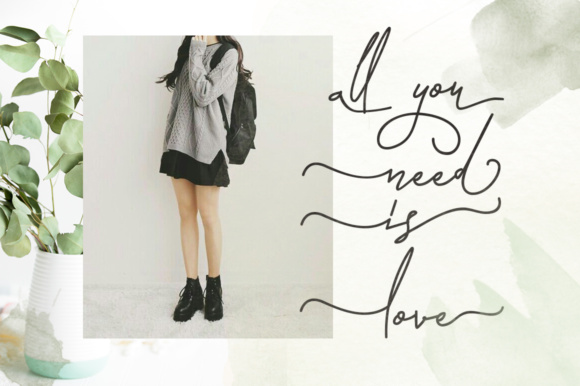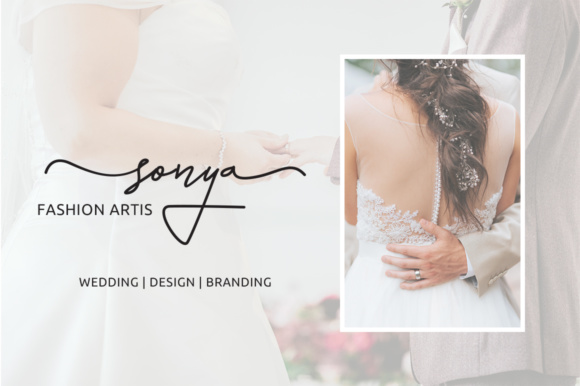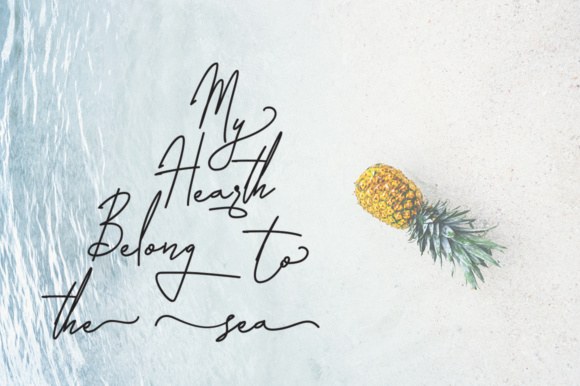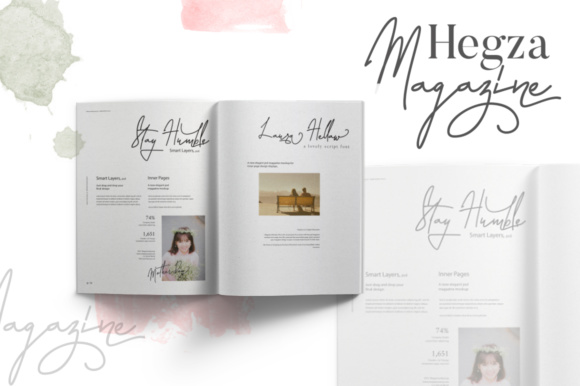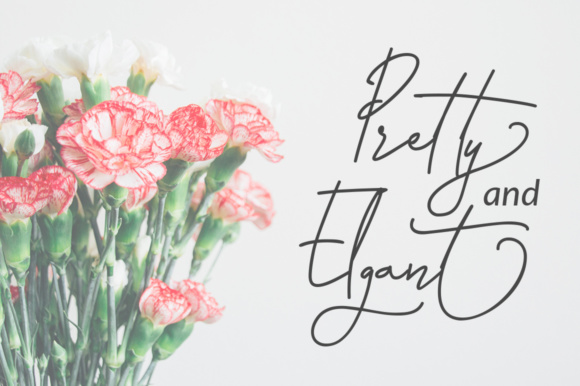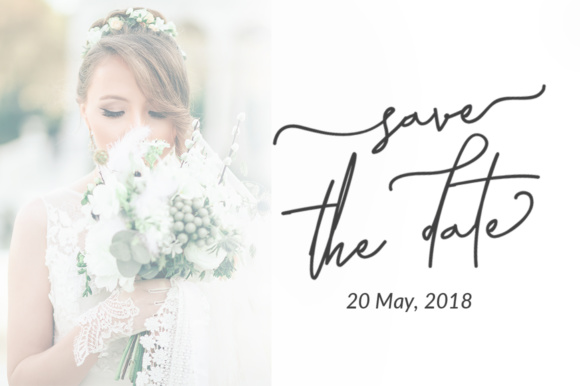
Introduction to Laura Hellaw Font
Have you ever stared at a blank design canvas, struggling to find the perfect font to bring your creative vision to life? I know I have. The blank page can be intimidating, but the right font can make all the difference. That’s where the beautiful Laura Hellaw Font comes in – a lovely script font that’s perfect for a wide range of creative projects and special event designs.
This monoline signature font is a game-changer for designers, offering a unique blend of modernity and elegance that’s sure to elevate any design. Whether you’re working on a free download or a high-quality design resource, the Laura Hellaw Font is a valuable addition to any designer’s toolkit. With its transparent background and high-quality design, it’s perfect for adding a touch of sophistication to your designs.
Key Features of Laura Hellaw Font
- Comes in a single weight, making it easy to incorporate into various design elements.
- Designed with a unique, hand-drawn aesthetic that adds a touch of elegance to any creative project.
Honest Review: Laura Hellaw Font
One of the standout features of the Laura Hellaw Font is its high quality and versatility. It’s perfect for a variety of creative projects, from blog headers to logo designs.
- ✨ Beautiful, elegant script style
- ✨ High quality and detailed design
- ✨ Perfect for creative projects that require a touch of sophistication
- ⚠️ Limited character set, may not be suitable for extended text blocks
- ⚠️ Some users may find the font’s script style too ornate for certain projects
Overall, I’m impressed with the Laura Hellaw Font’s design and functionality. While it may have some limitations, it’s a valuable addition to any design library, especially for those looking for a unique and high-quality script font.
The Laura Hellaw Font is suitable for a variety of design projects, including:
Logo design
Brand identity
Marketing materials
Web design